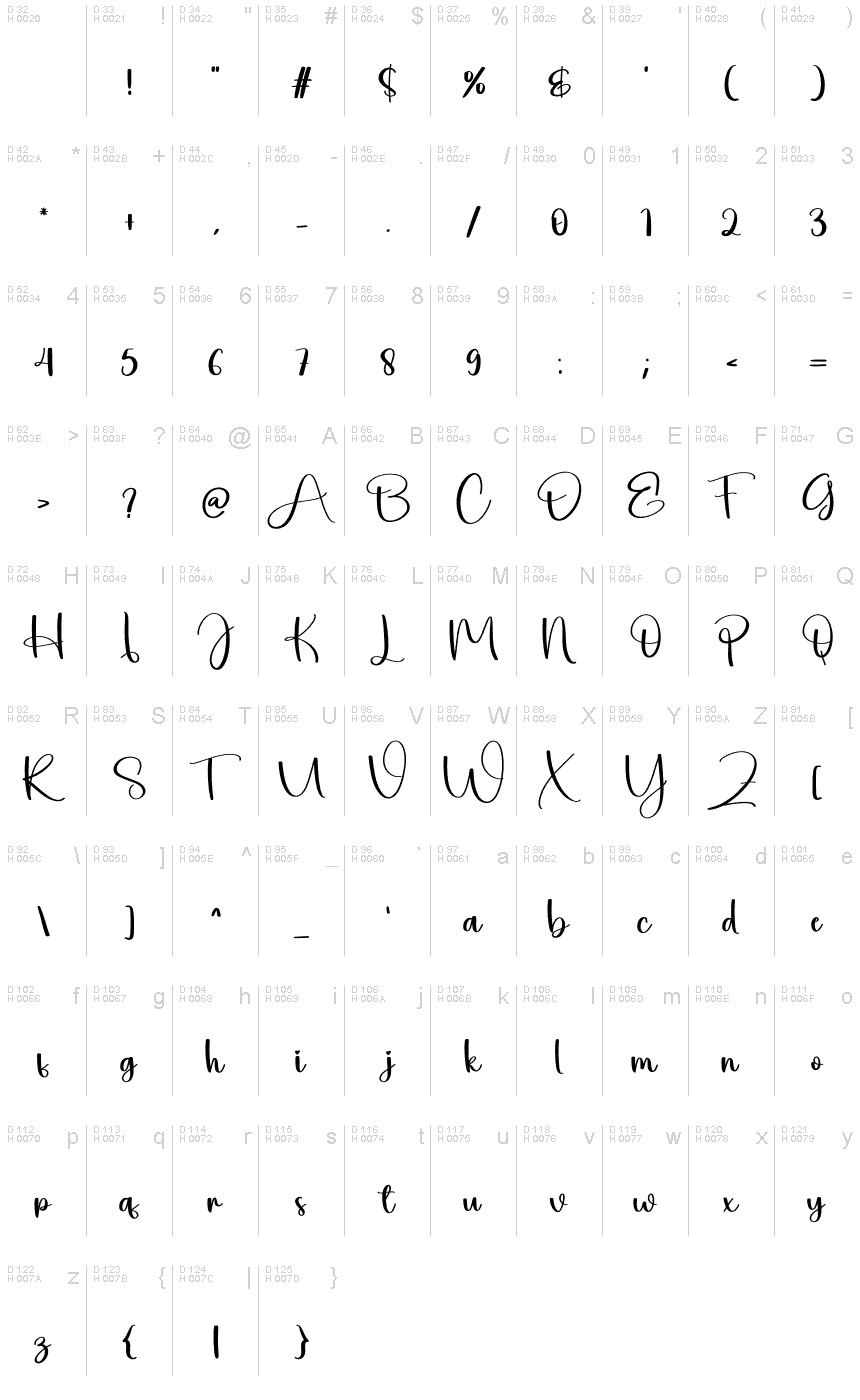
Dripping
Dripping, a mesmerizing calligraphy font by Scratchones, is the perfect choice for projects seeking an elegant touch. With its semi-light weight, this font brings a delicate and flowing feel to any design.
Ideal for wedding invitations, love letters, and romantic branding projects, Dripping evokes a sense of beauty and sophistication. Its graceful curves and exquisite details make it equally suitable for logo designs, luxury fashion magazines, or high-end restaurant menus.
Let Dripping elevate your creations with its enchanting and timeless charm.